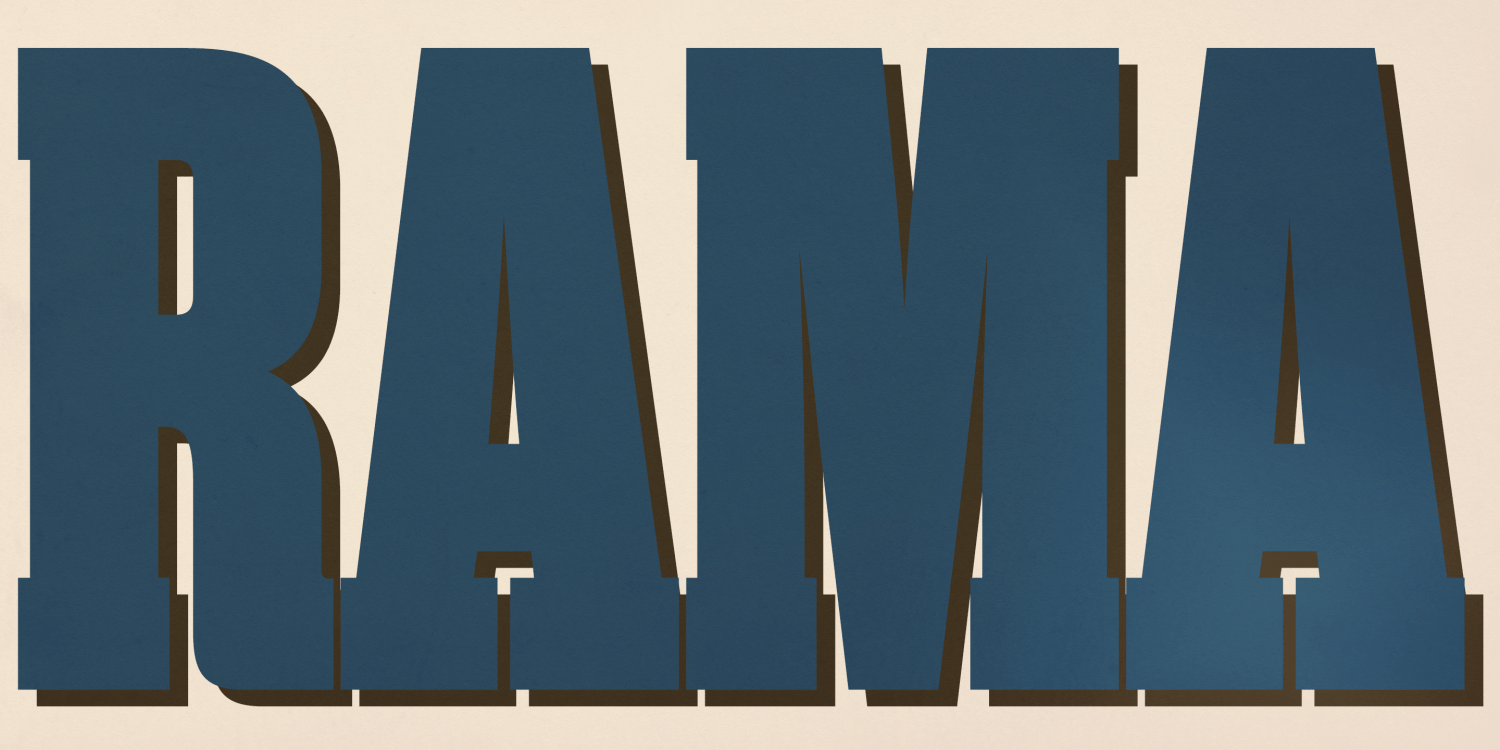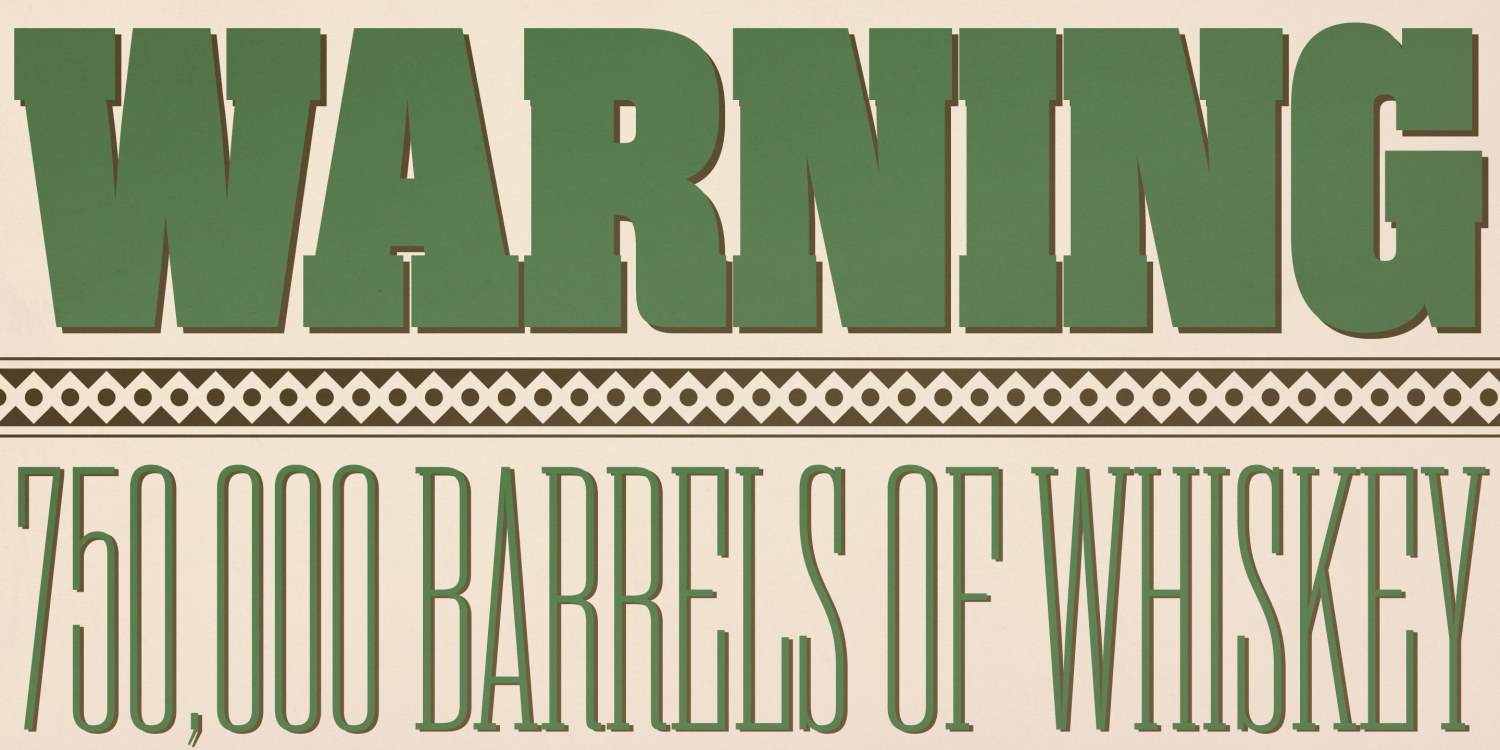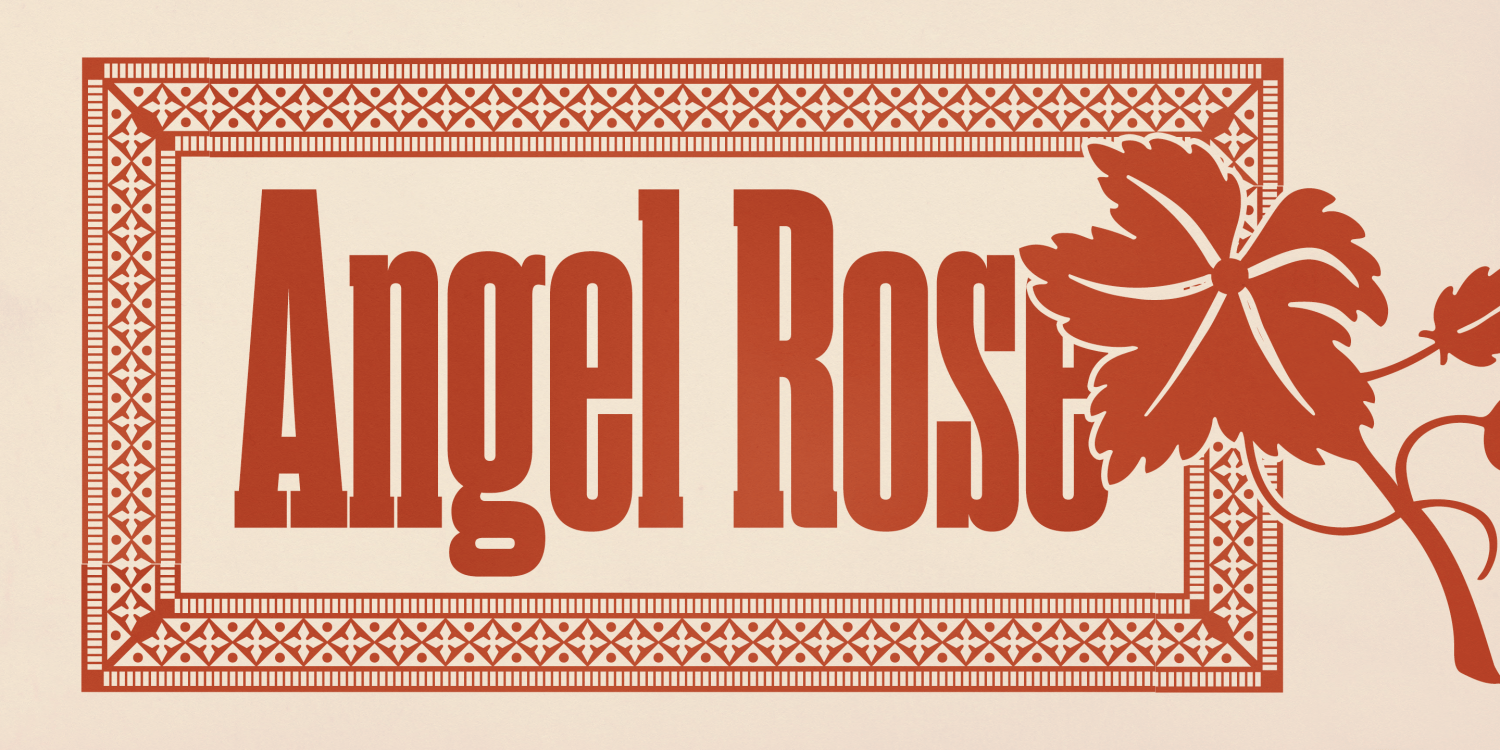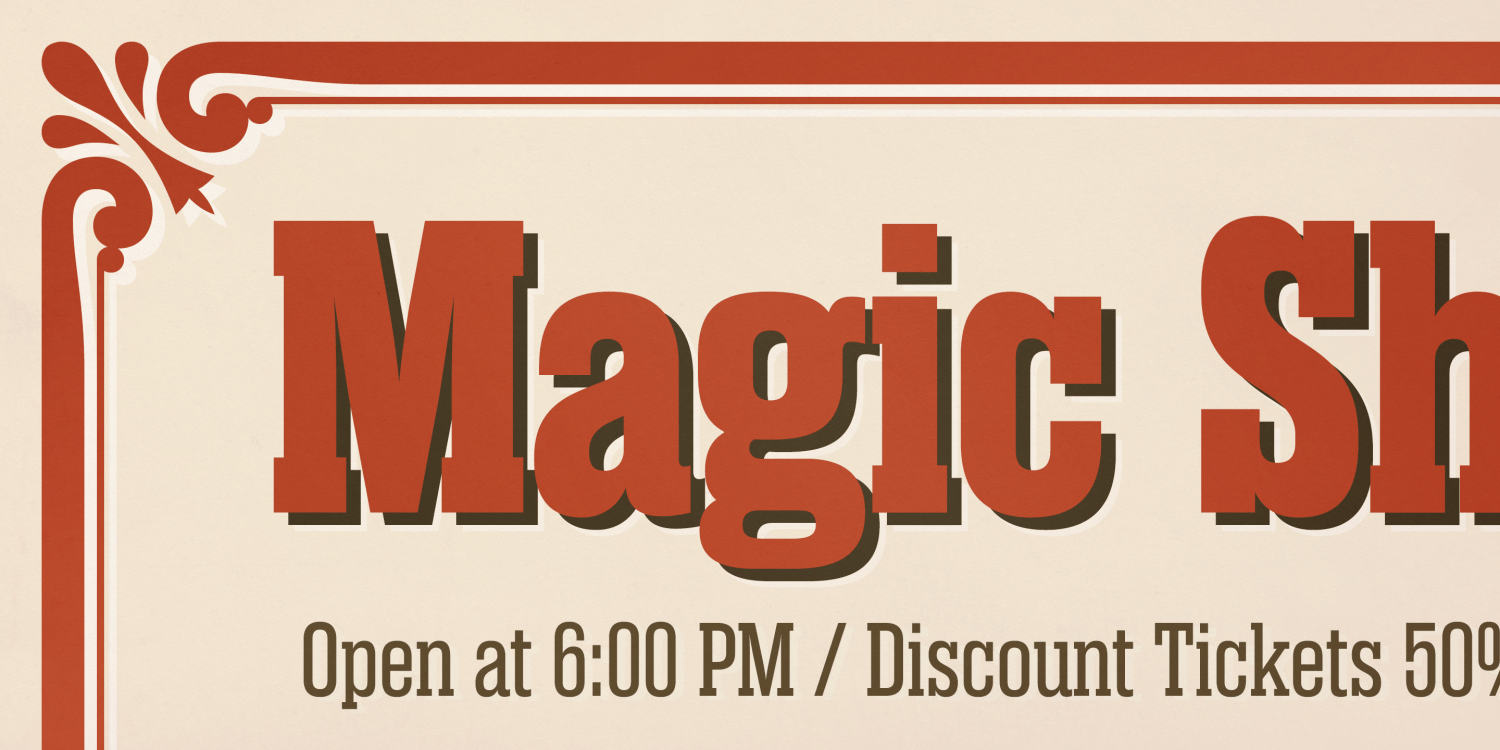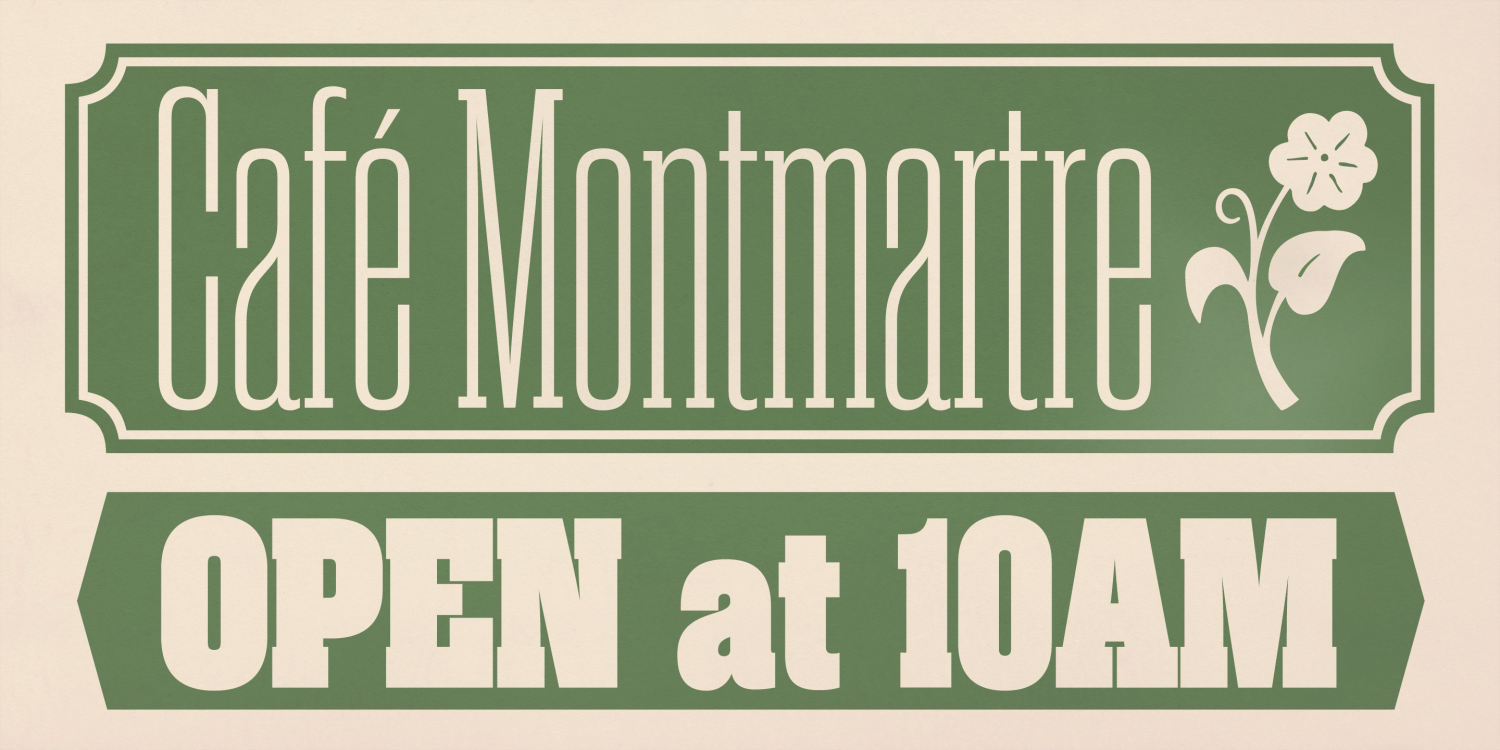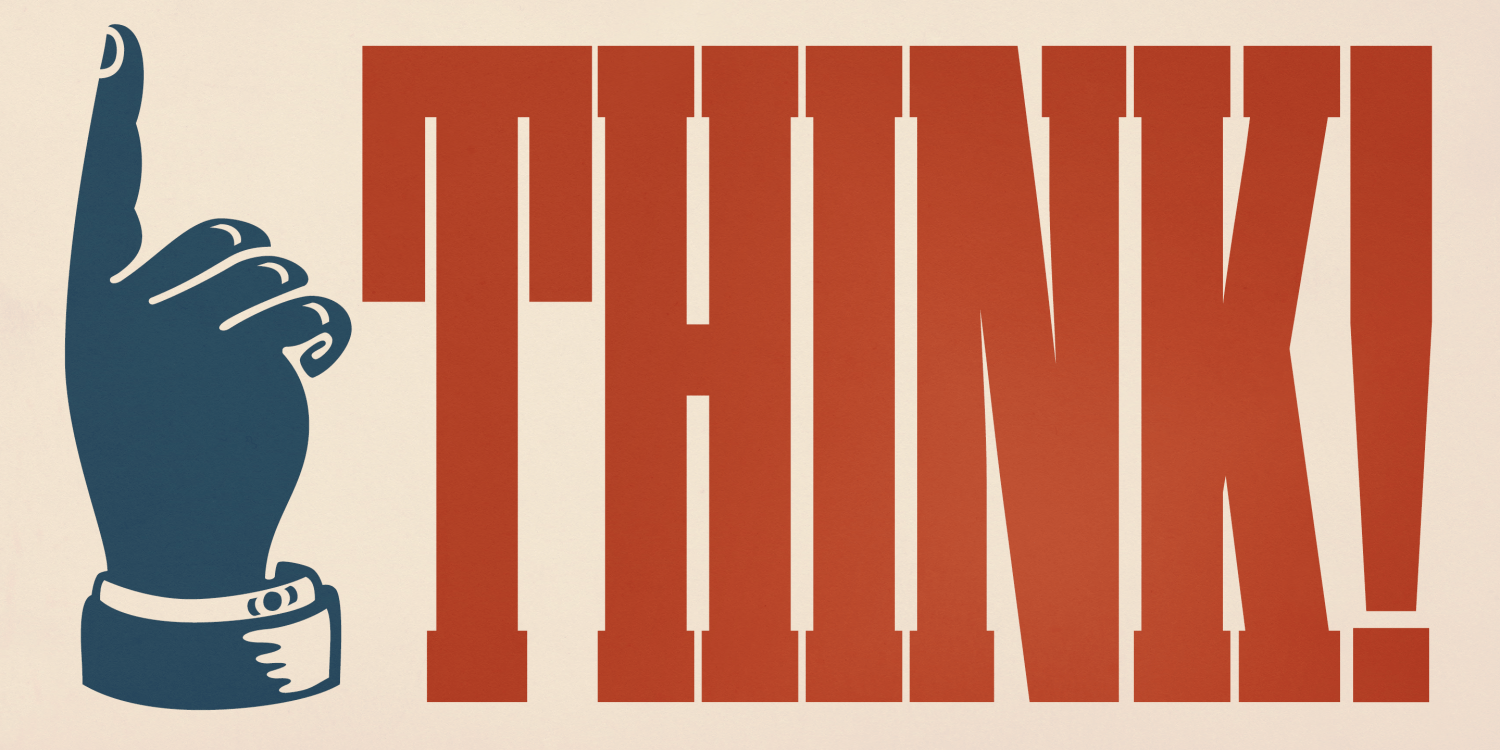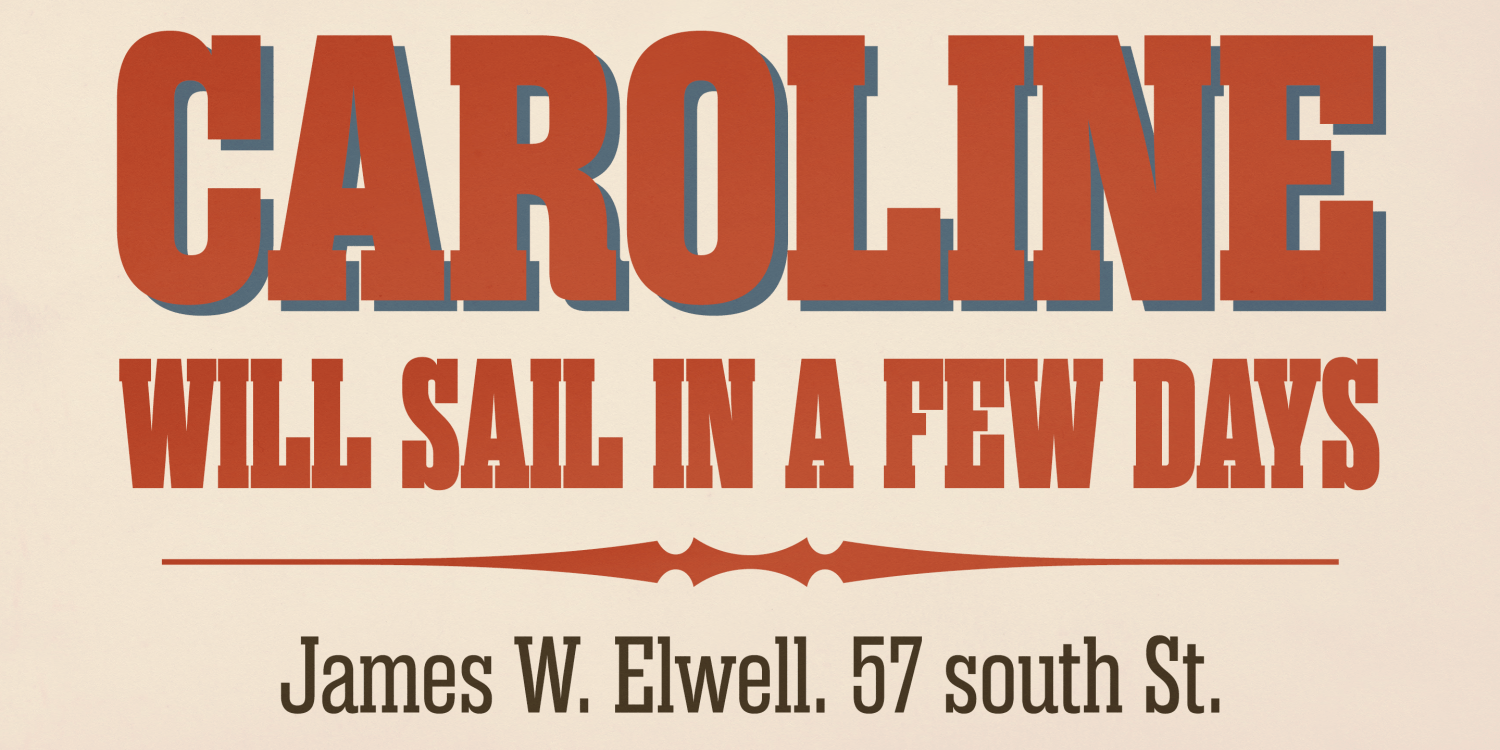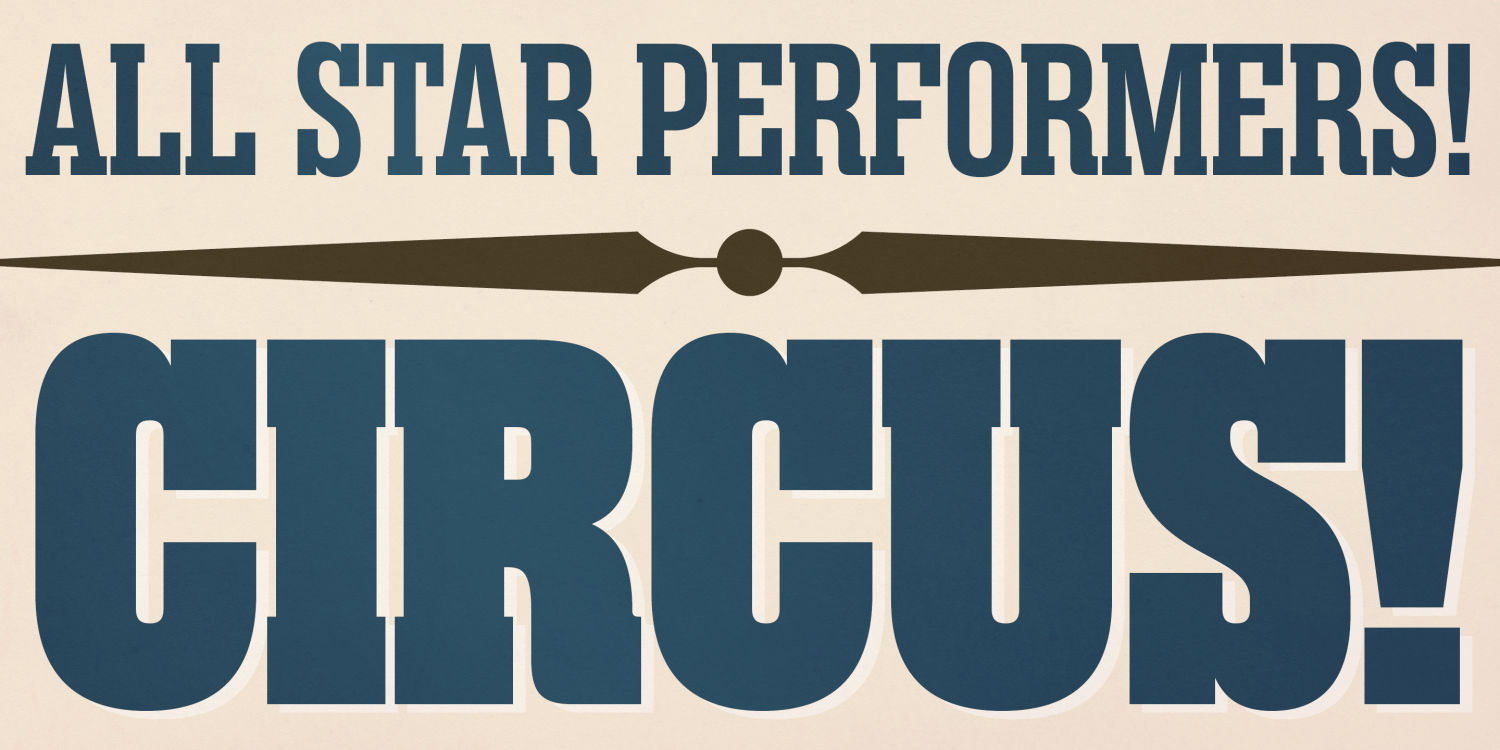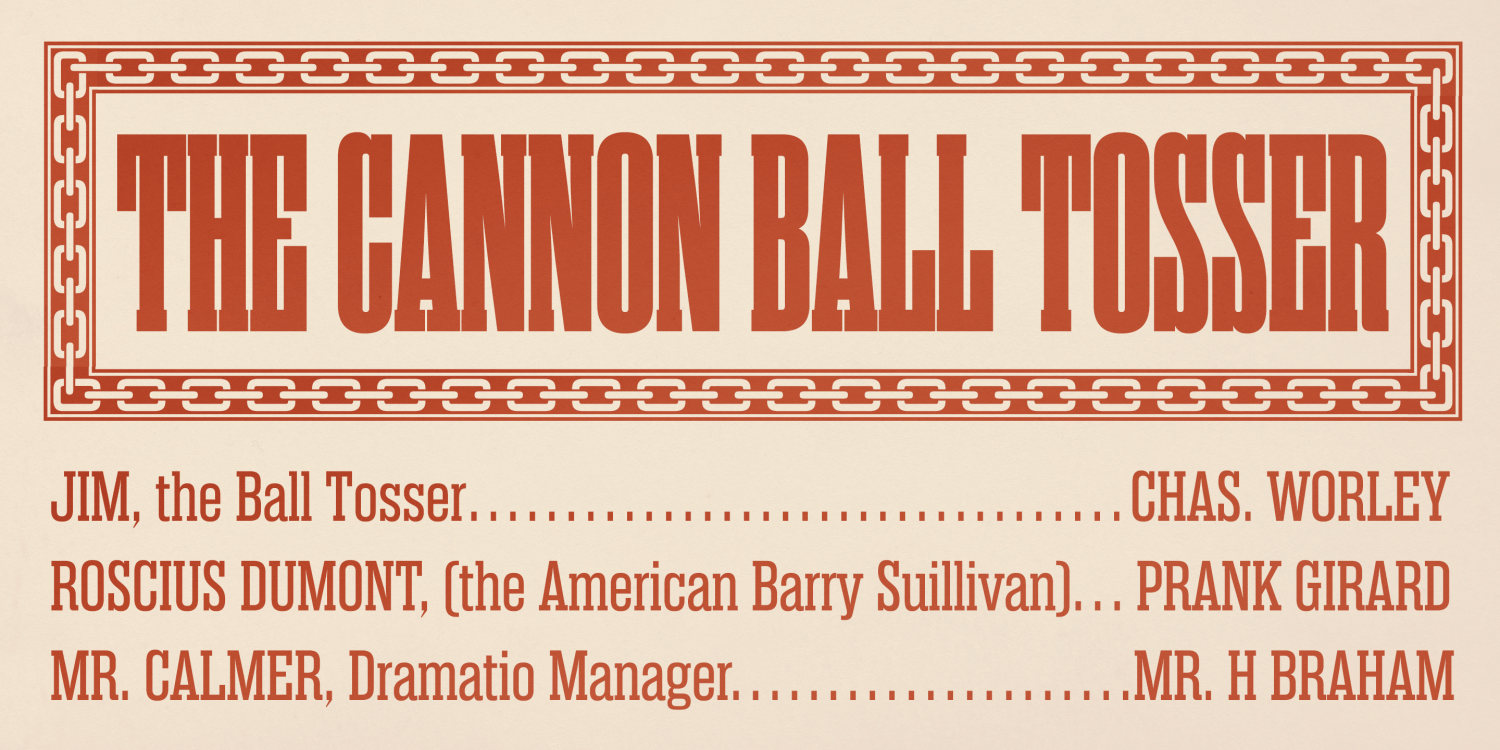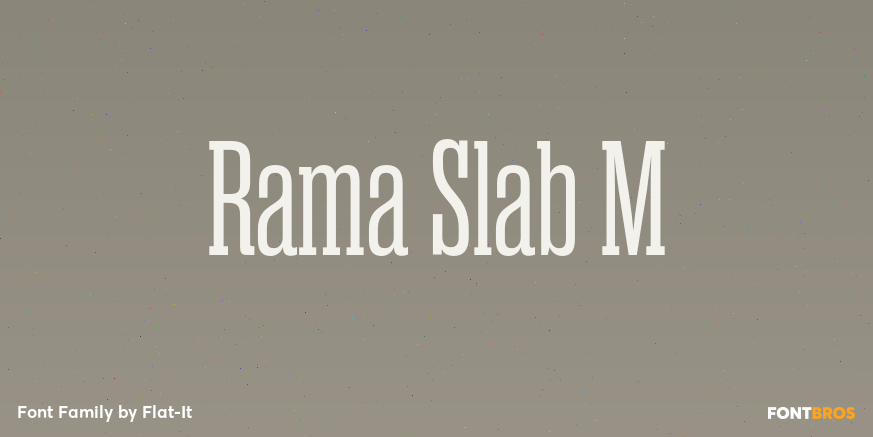
Rama Slab M
Rama Slab is an antiqued slab serif typeface inspired by 19th-century wood type.
Each glyph is meticulously crafted to evoke the retro charm and nostalgic feel of the era.
This condensed font family includes 18 styles, making it an ideal choice for posters, titles, and any design that demands a bold, impactful presence.
Additionally, the letter “r” features an alternate glyph, accessible via the OpenType salt (stylistic alternates) feature, offering even more typographic flexibility.